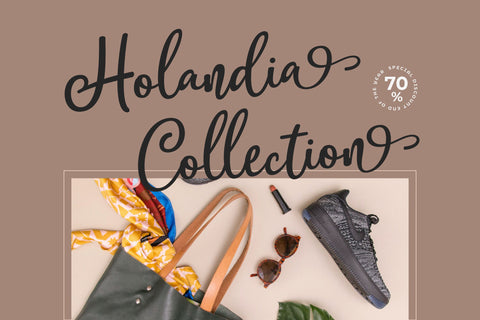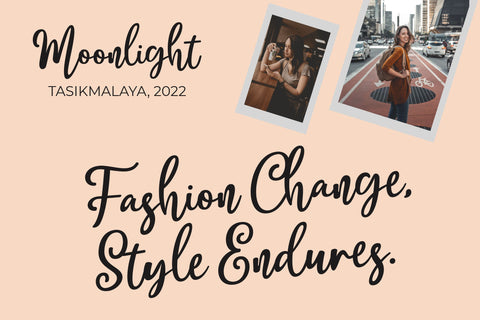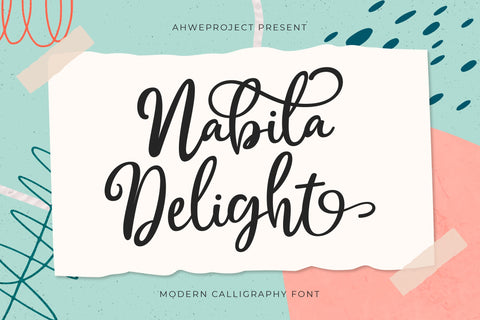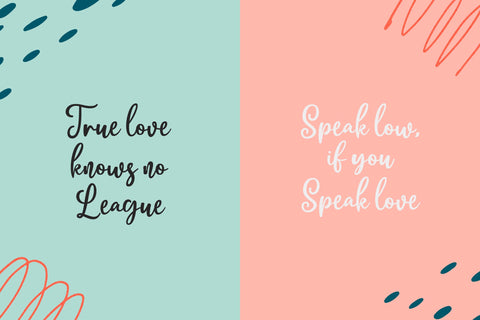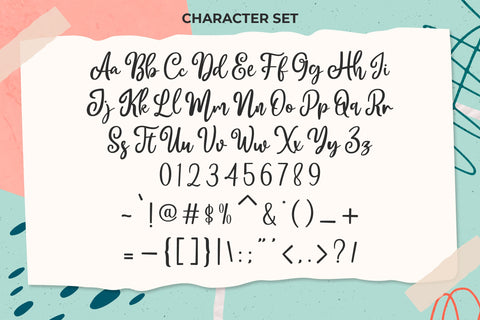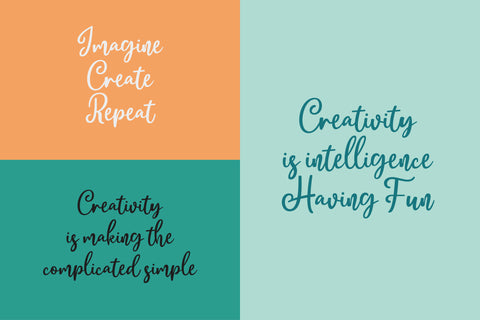
Nabila Delight - Elegant Script Font
Nabila Delight is a fabulously fun yet elegant script font with tons of energy, allowing you to create beautiful hand-made typography in an instant. With extra bouncy curves & loops, Nabila Delight is guaranteed to make your text stand out – perfect for logos, printed quotes, invitations, cards, product packaging, headers, and whatever your imagination holds.